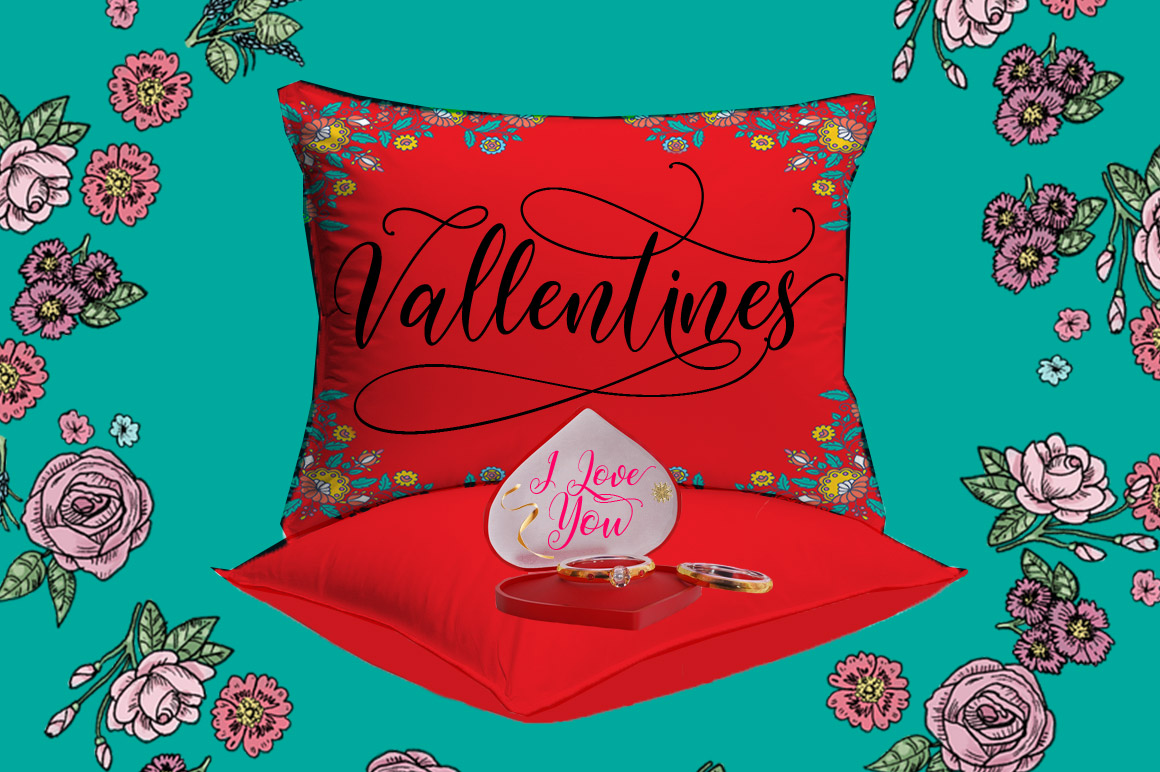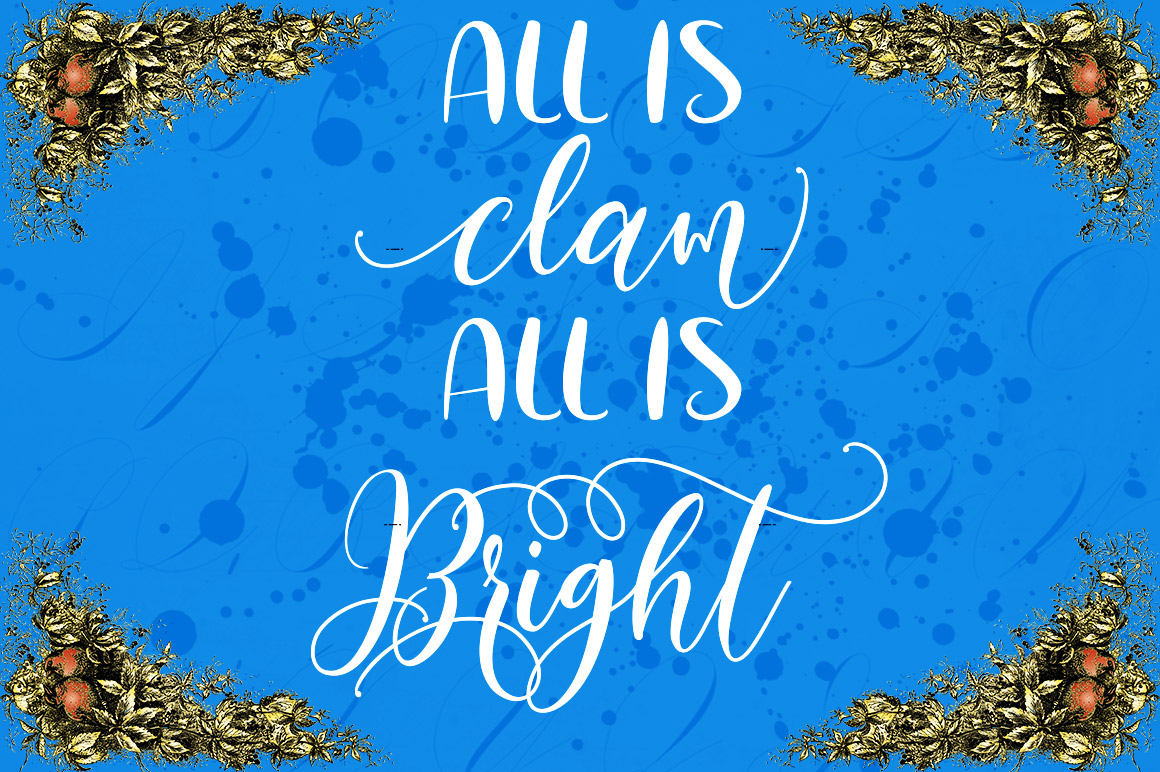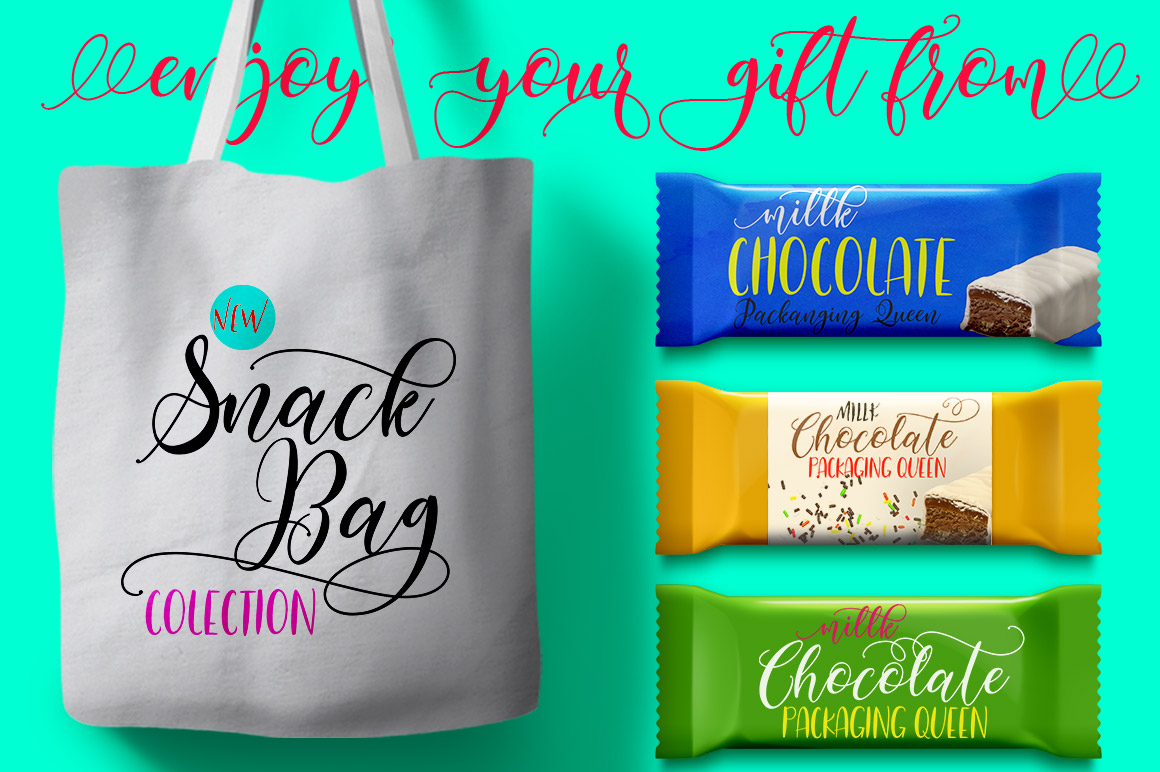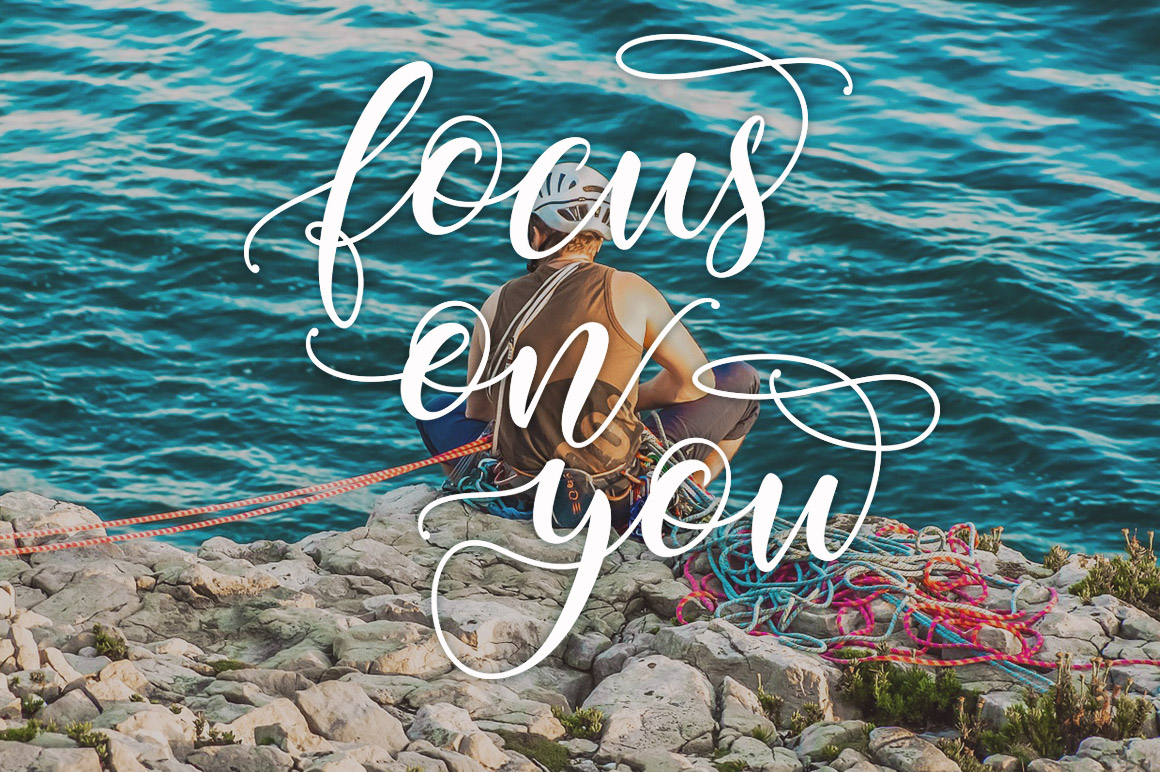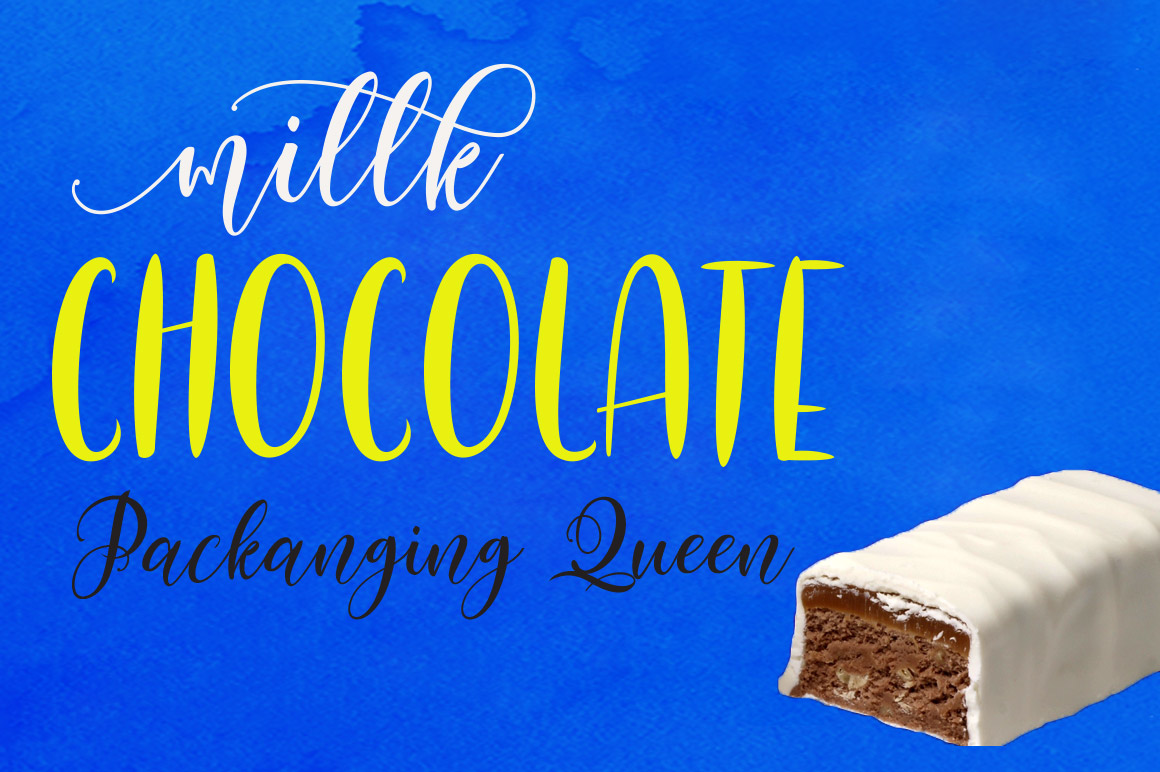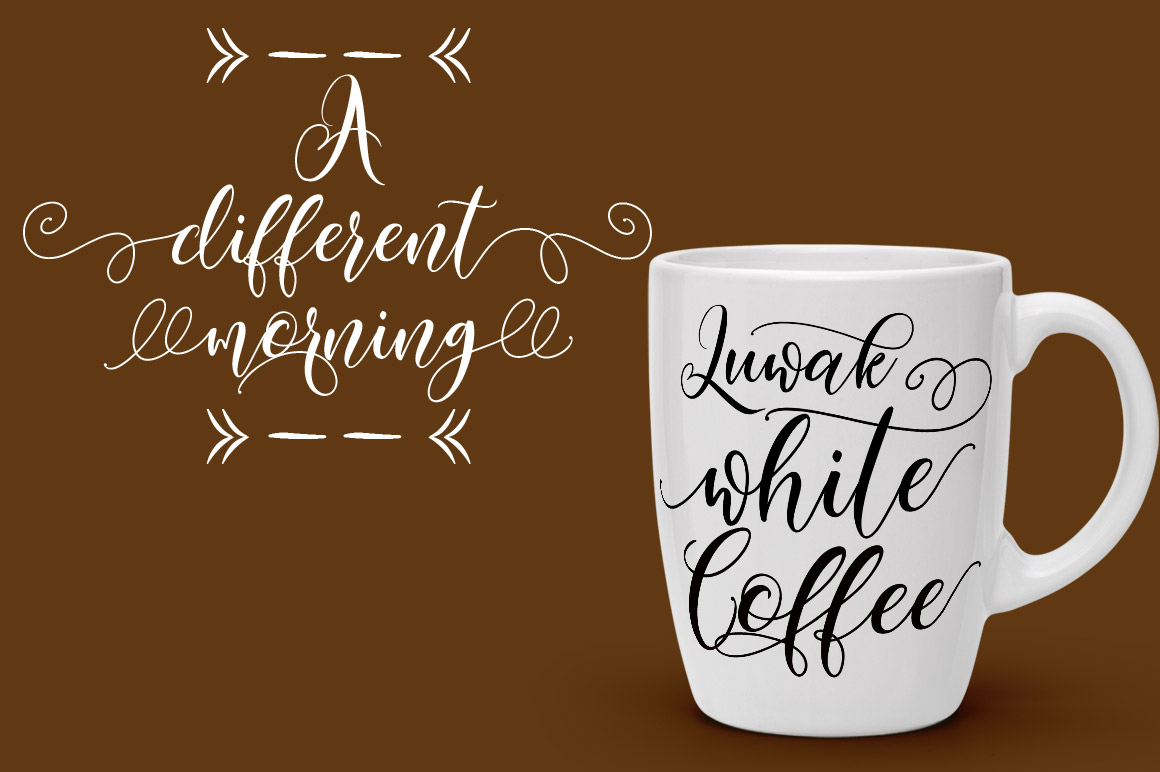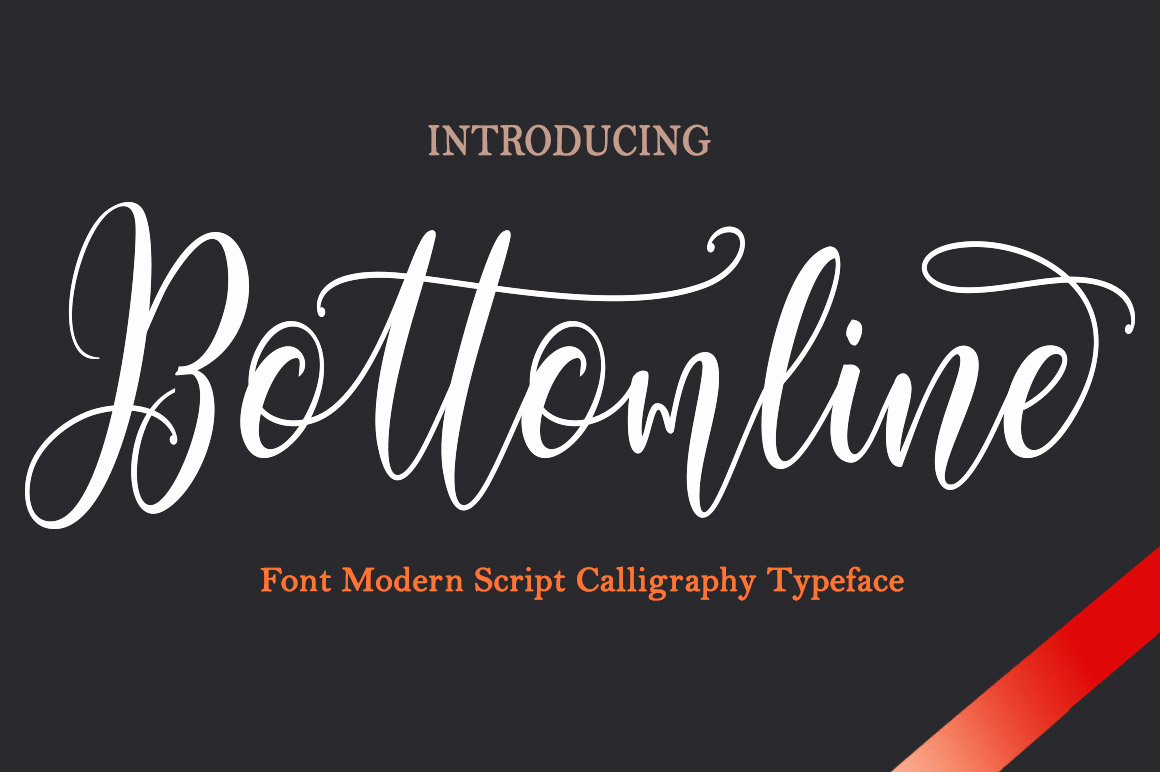
The Designer’s Delight: Uncovering the Beauty of Bottomline Font
I’ll never forget the moment I stumbled upon Bottomline Font while working on a project that required a touch of elegance and whimsy. I had been searching for the perfect calligraphy font to complement my design, but nothing seemed quite right. That was until I laid eyes on Bottomline – its gorgeous, flowing lines and intricate details instantly captured my heart. In this article, I’ll share my experience with this stunning font, its features, and how to make the most of it in your designs.
• 💫 Beautifully crafted calligraphy with intricate details
• ✅ Highly versatile and complementary to various art and design styles
• 🎉 Works wonderfully with Little Star – a sans serif, handwritten opposing font – for intriguing contrast
• 📚 Includes a wide range of OpenType features, glyphs, and stylistic alternates
• ⚠️ Some characters may not work well in very small font sizes
• 🤔 Limited use of certain glyphs and alternates in non-OpenType supporting software
The Story Behind Bottomline Font: Designer Inspiration
While the actual story behind Bottomline Font remains a mystery, it’s easy to imagine that its designer was inspired by the world of calligraphy and hand-lettering. With its intricate details and flowing lines, Bottomline Font seems to have been crafted with love and care. Its designer likely aimed to create a font that would complement a wide range of art and design styles, and I believe they’ve succeeded.
What is Bottomline Font best used for? Bottomline Font is ideal for designs that require a touch of elegance and whimsy, such as invitations, greeting cards, and branding materials.